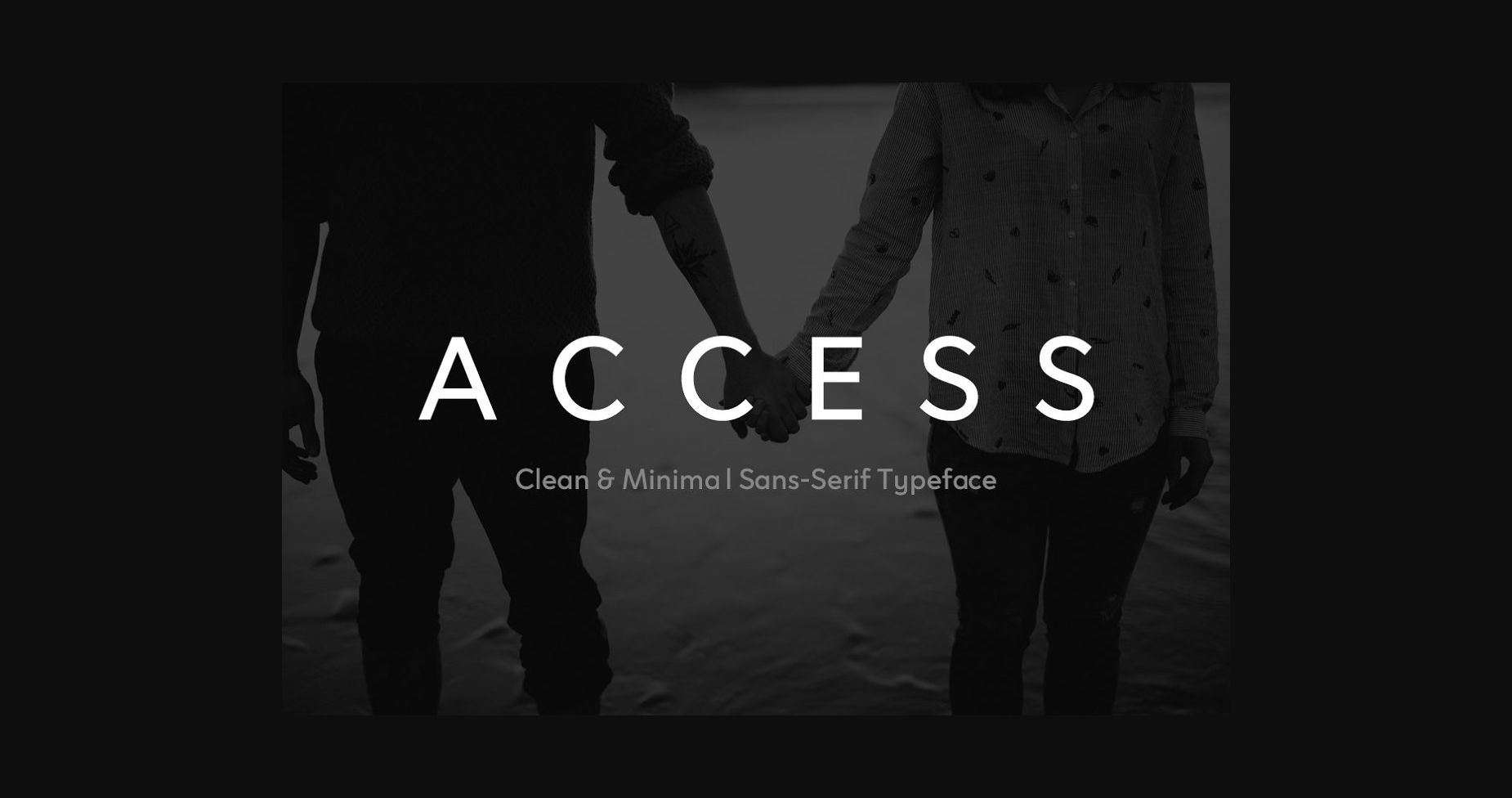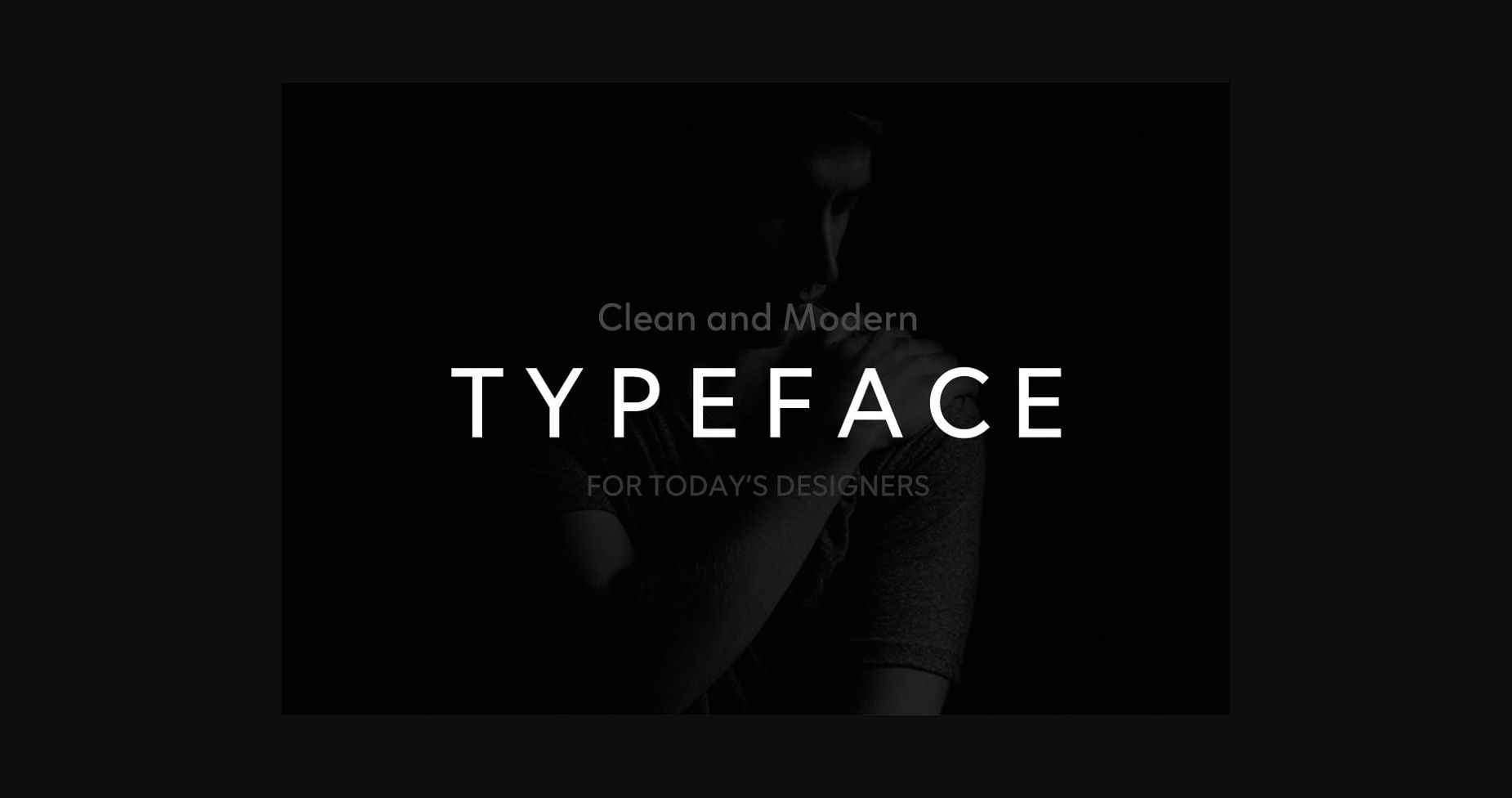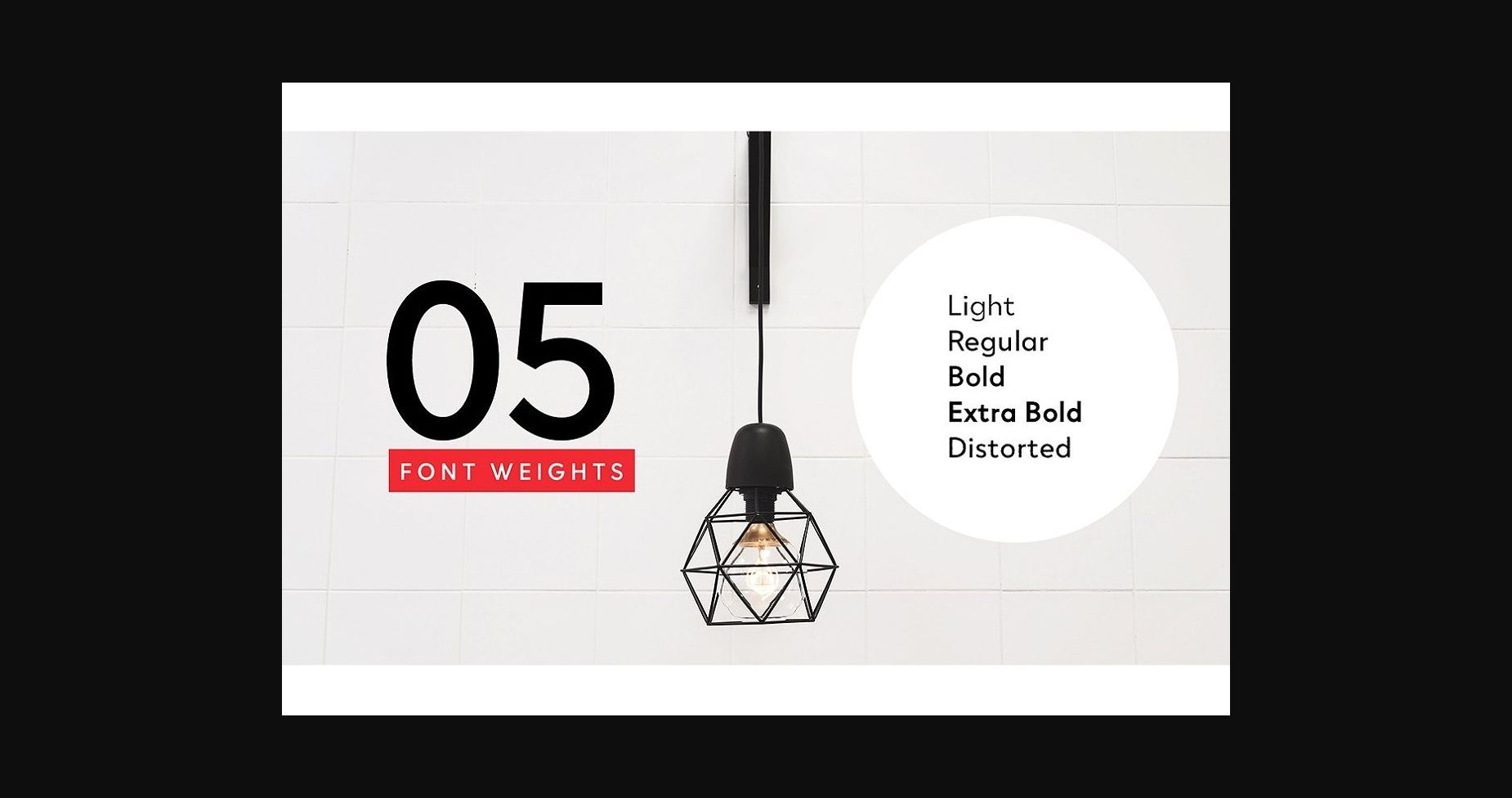
Access Font
About Access Font
Access is a classic and minimalist sans serif font. It can easily be matched to an incredibly large set of projects, so add it to your creative ideas and notice how it makes them stand out!